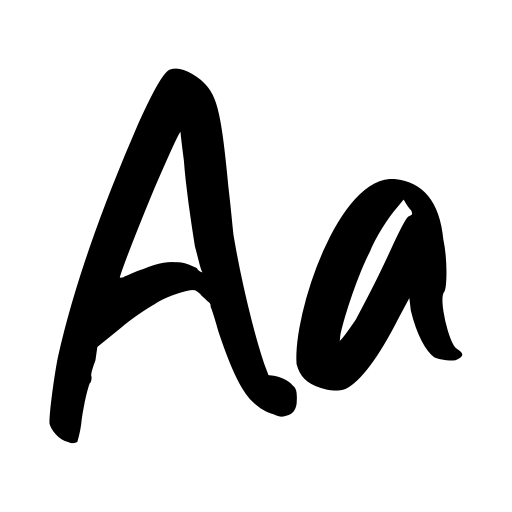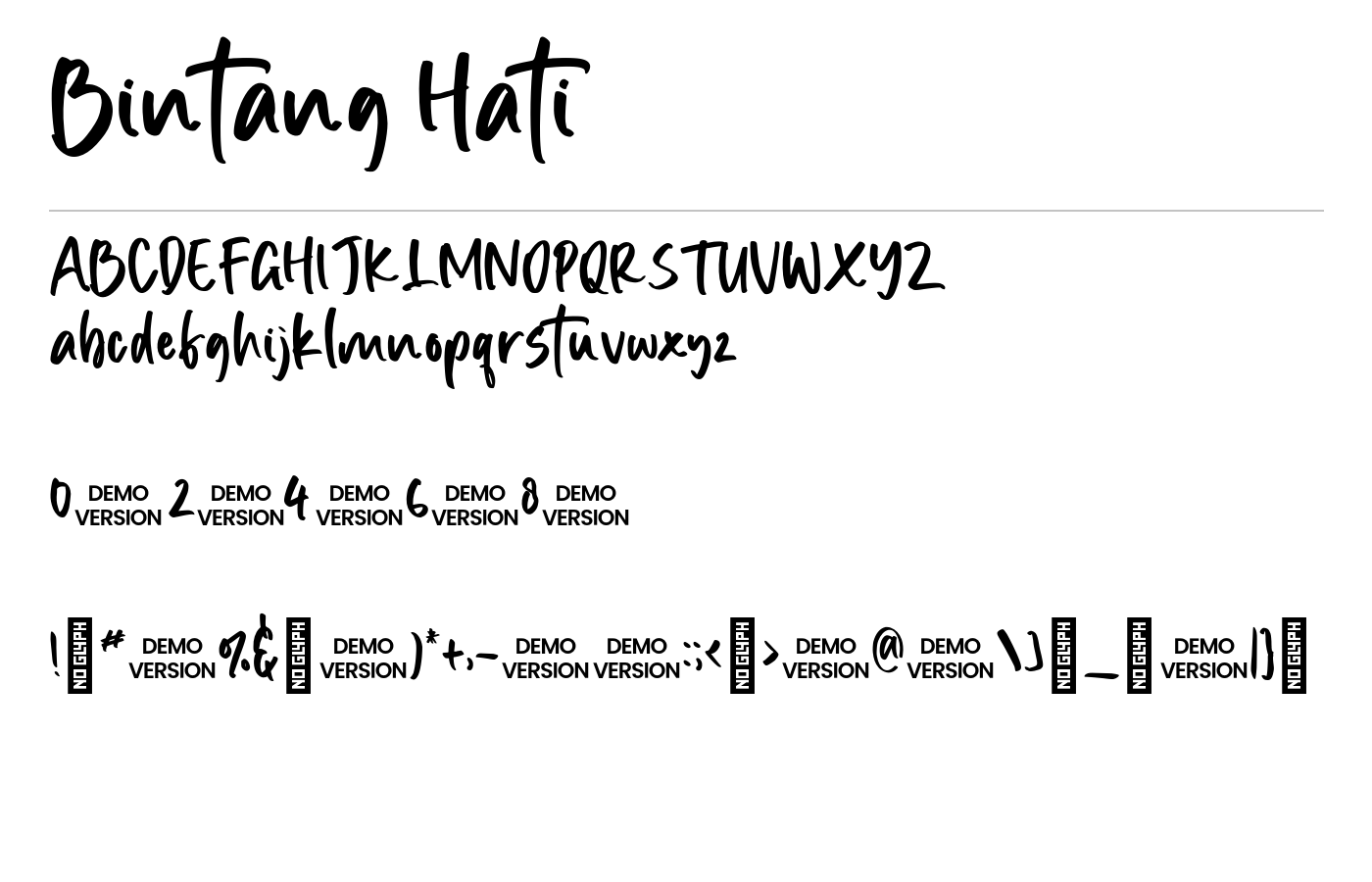
Bintang Hati is a casual, handwritten sans serif font with a lively and organic feel. Its uneven strokes and playful character shapes give it a friendly and approachable personality, making it perfect for creative projects, informal branding, and personal communication. This font works well in headlines, logos, and packaging where a warm, hand-crafted touch is desired.
Bintang Hati Font
About Bintang Hati Font
| Font family | Bintang Hati Font |
| Designer | Hasna "Violatype" |